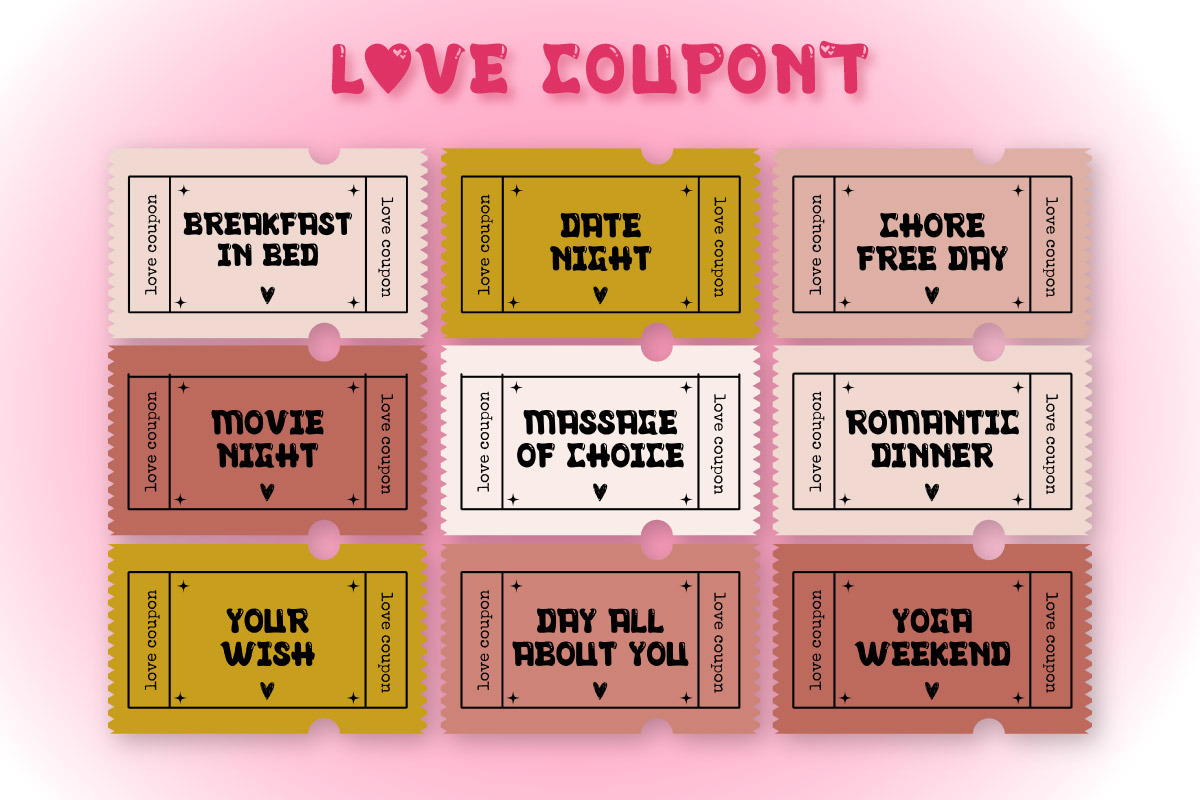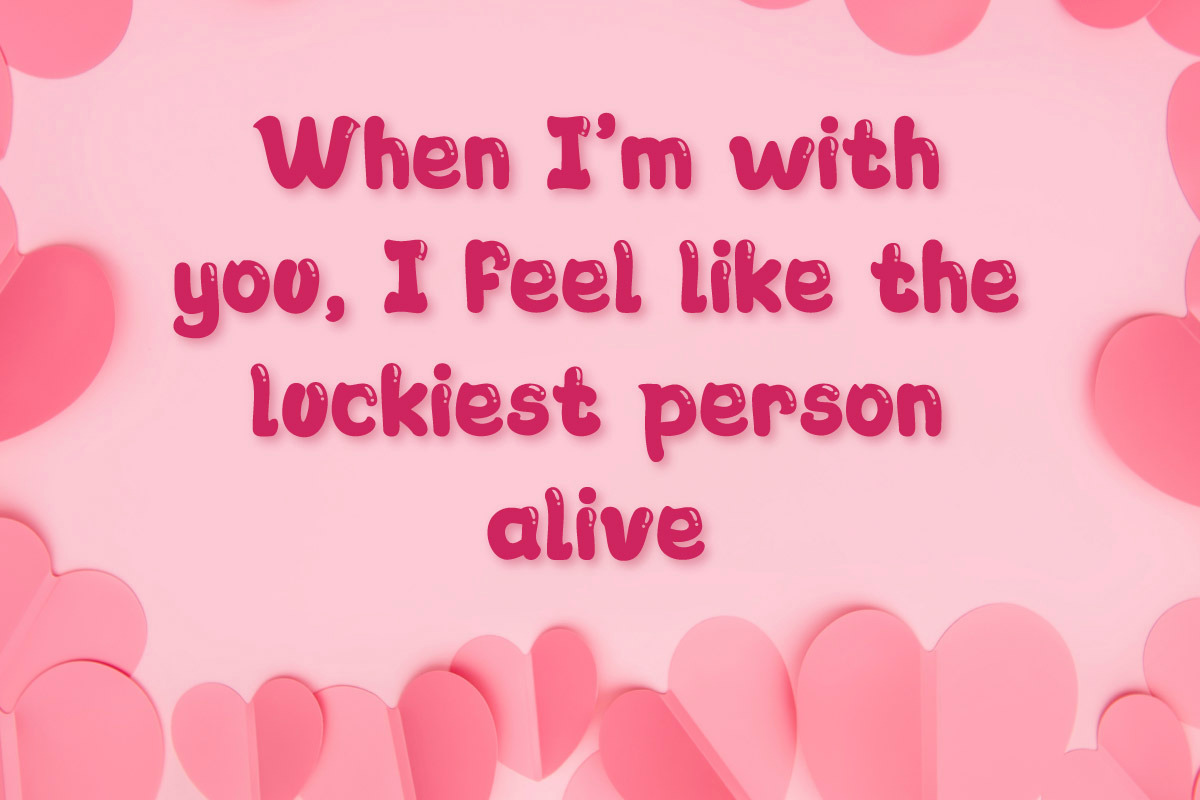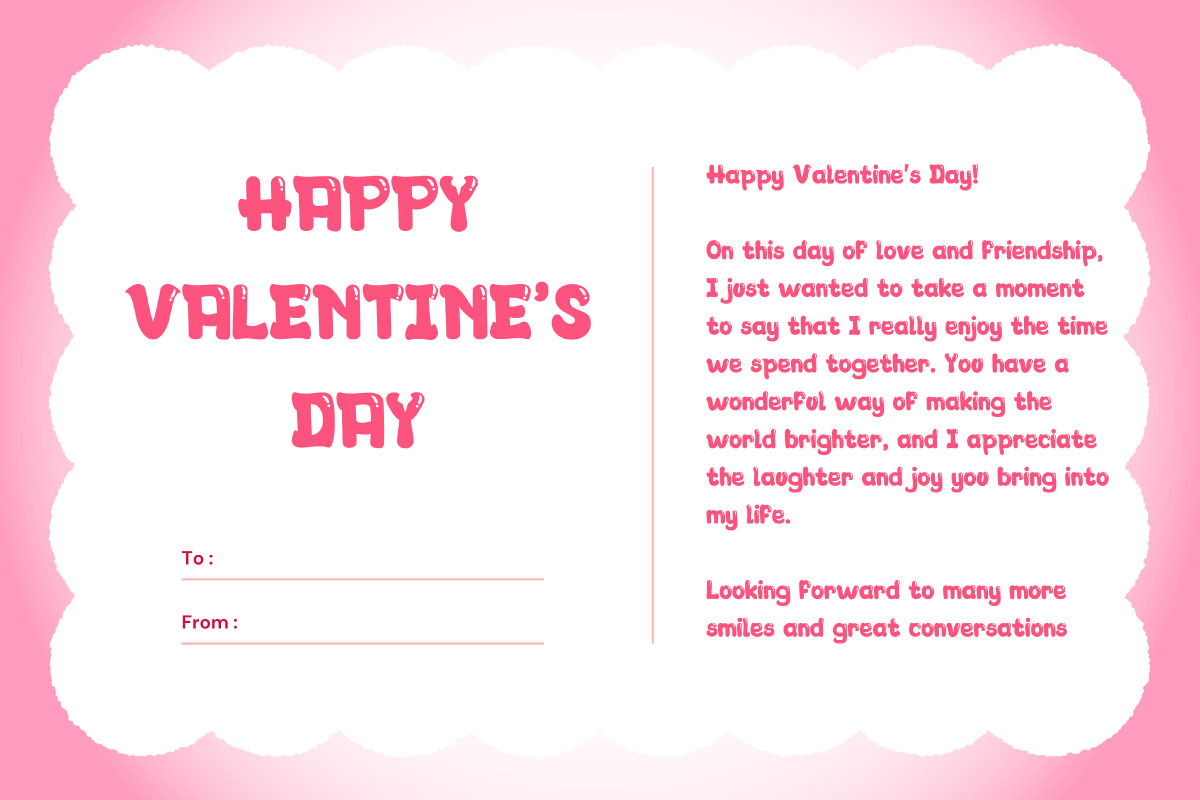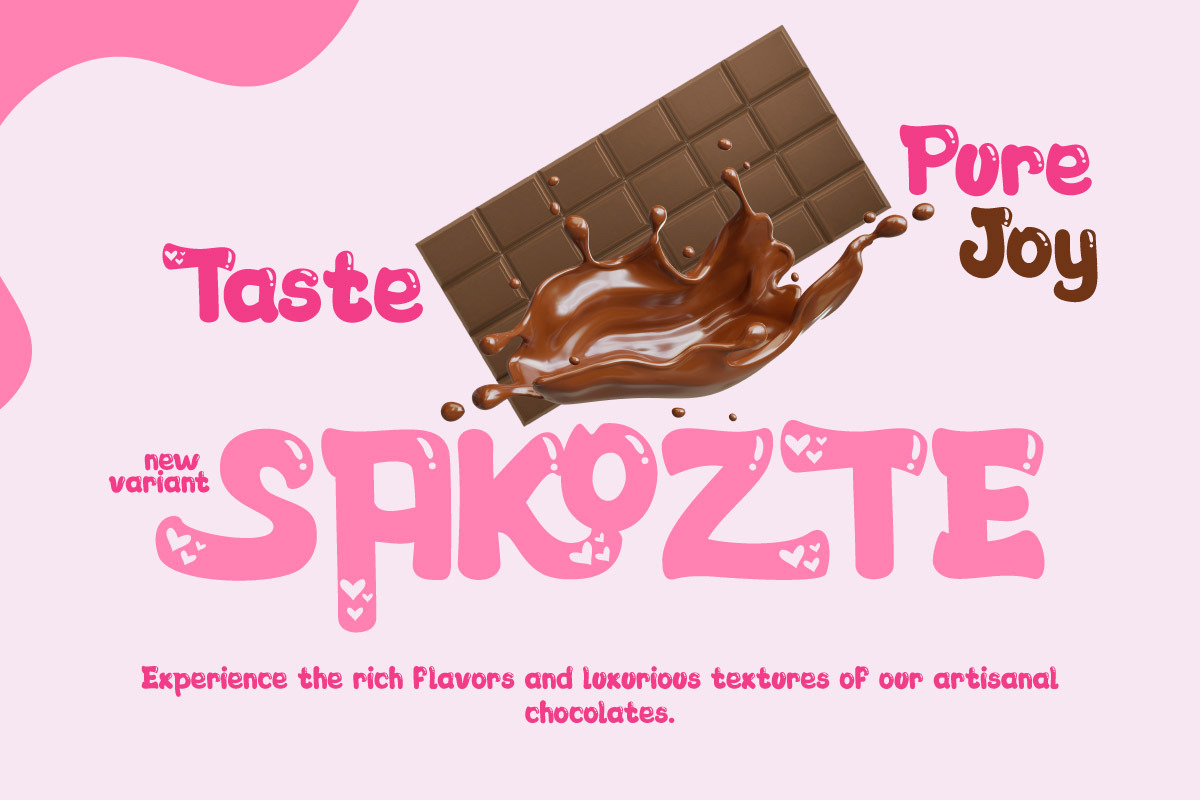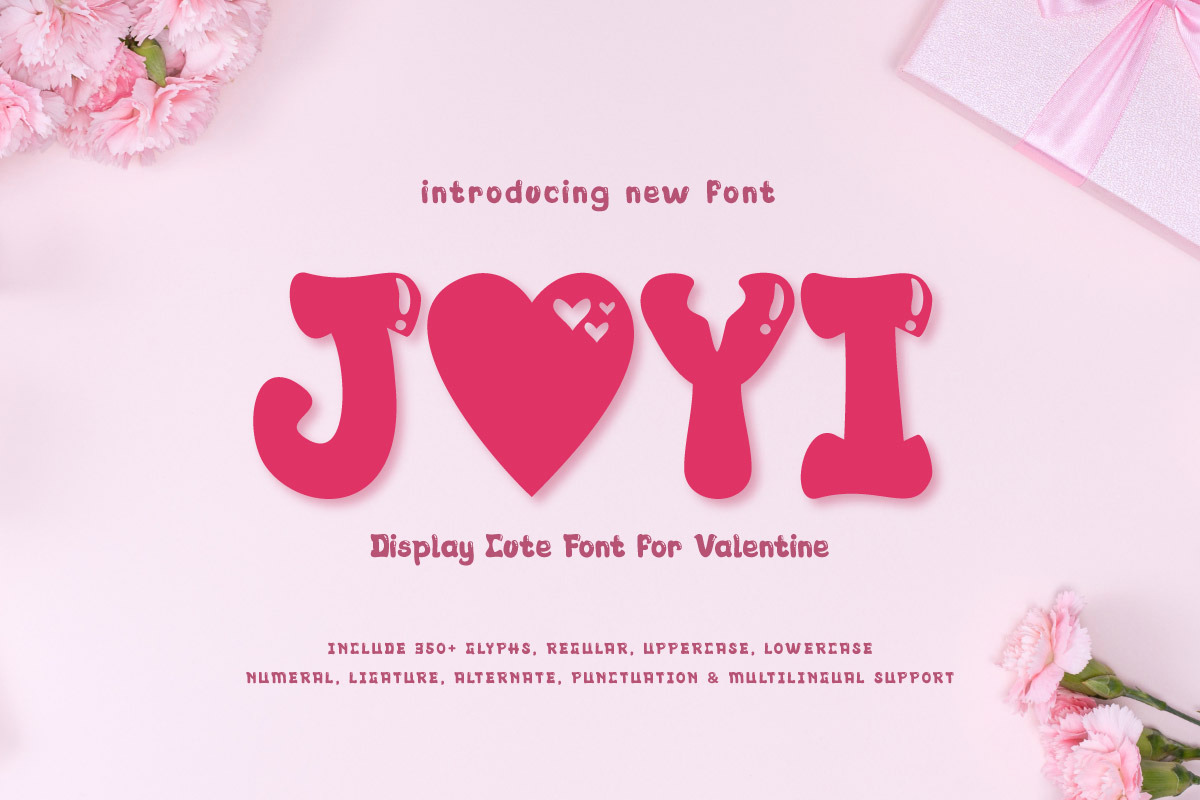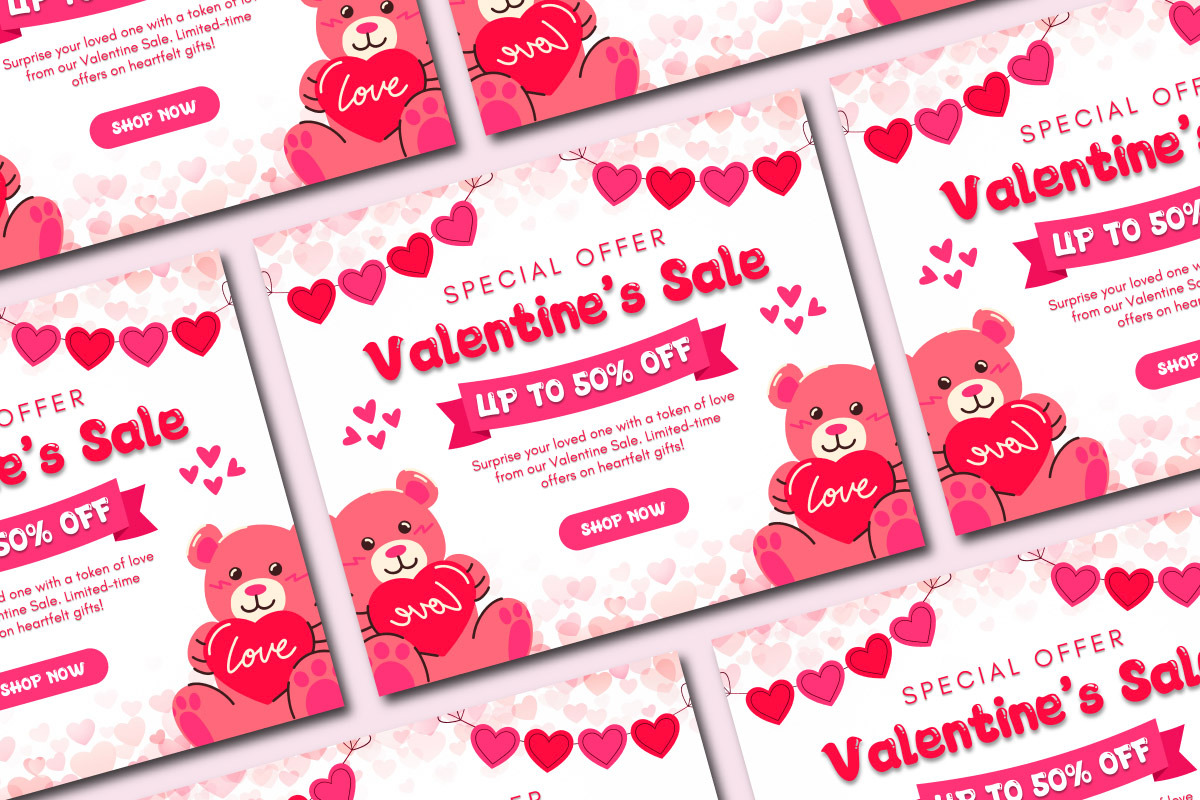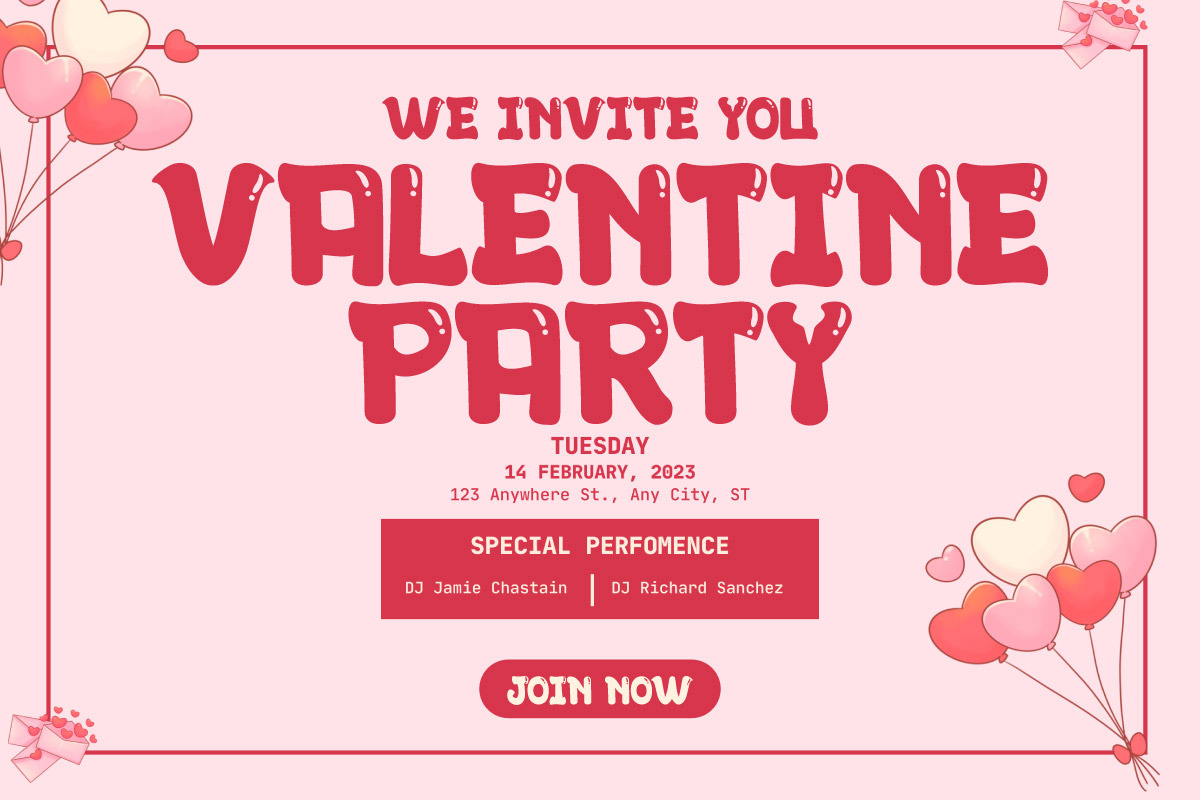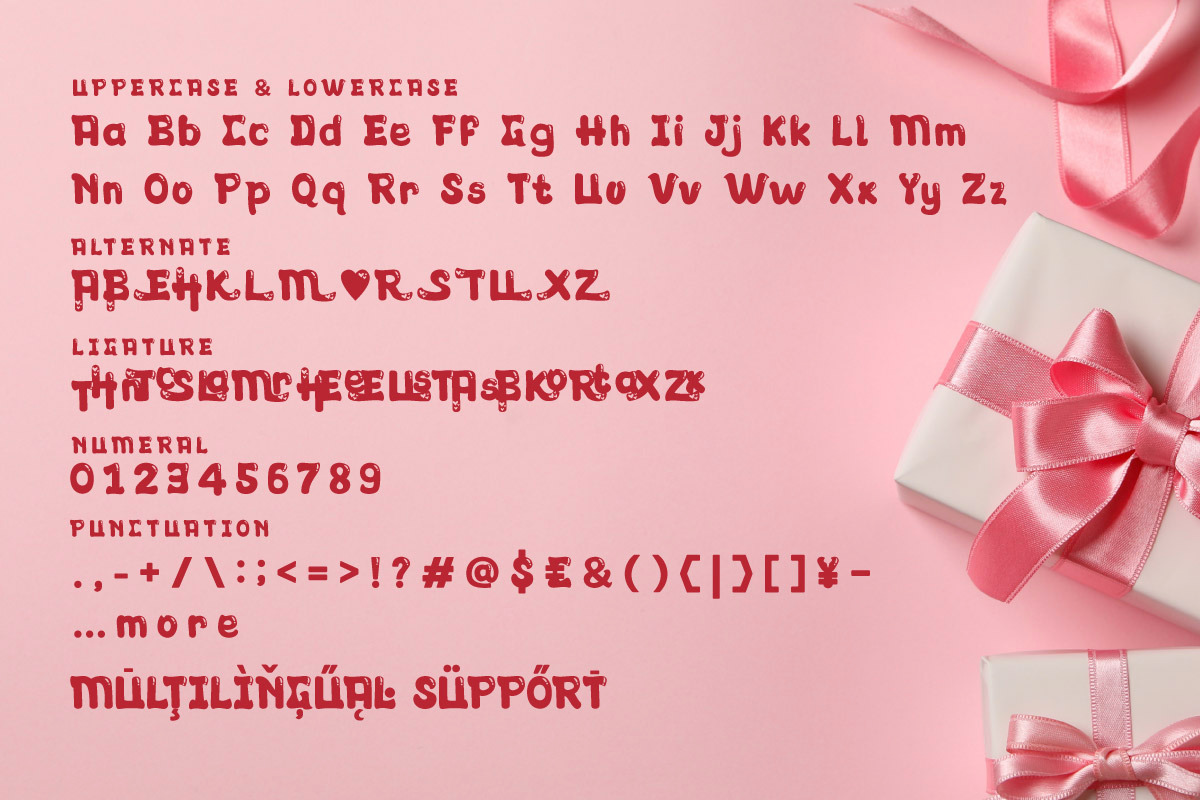
JOYI - Fun & Playful Valentine Font
JOYI is a fun and delightful font created for Valentine’s Day projects, love-themed branding, greeting cards, and romantic packaging. Its bold yet soft strokes make it stand out while maintaining a friendly and approachable style. Perfect for designers looking to craft charming invitations, special promotions, wedding stationery, or creative social media posts. This font blends playful aesthetics with modern elegance, making your designs feel loving and full of warmth.